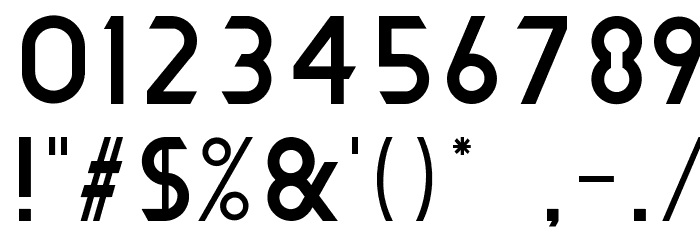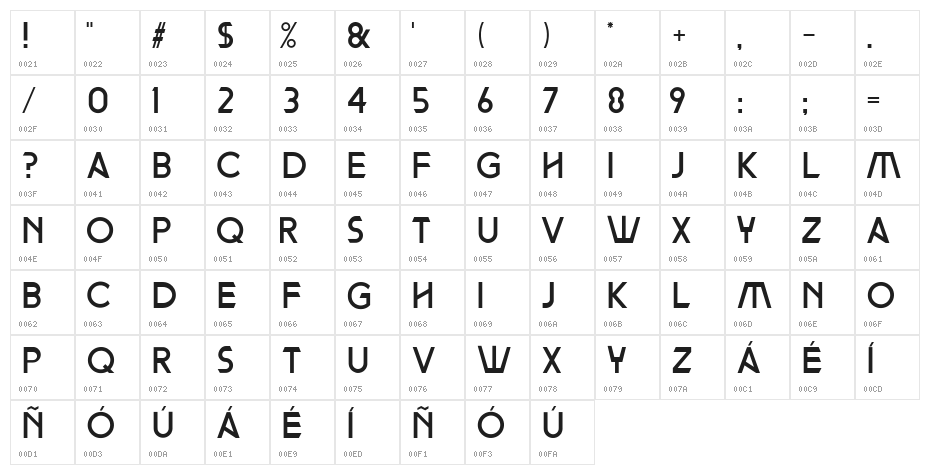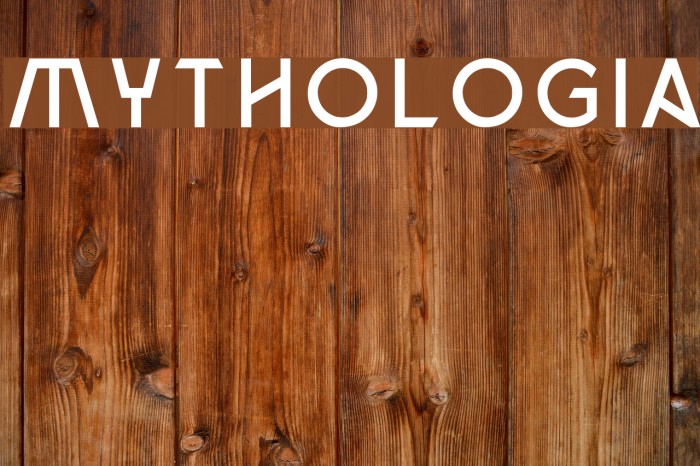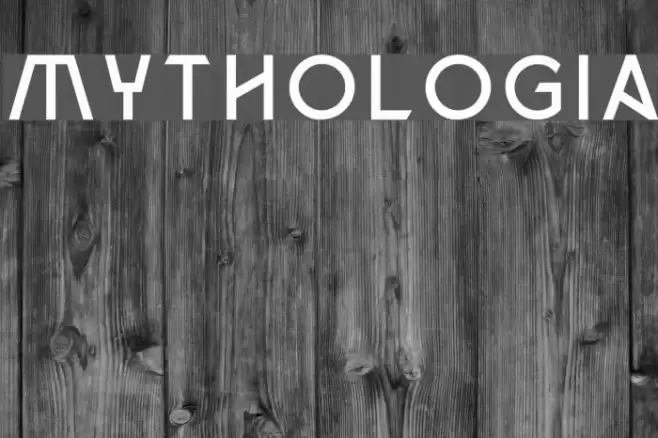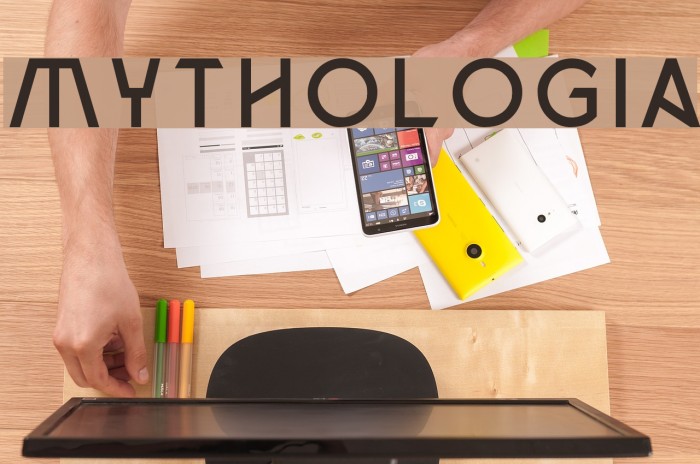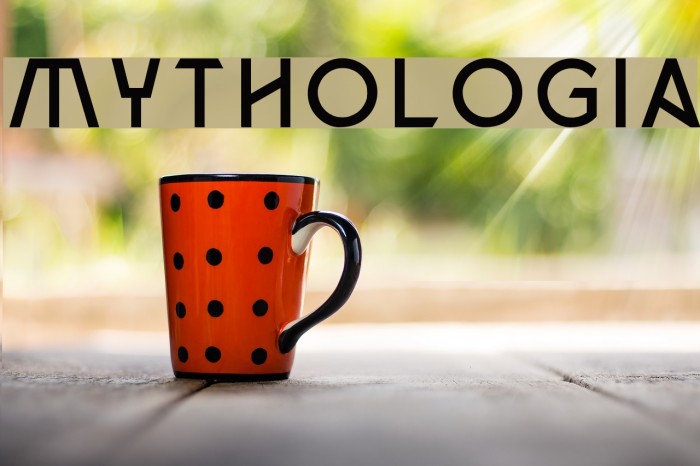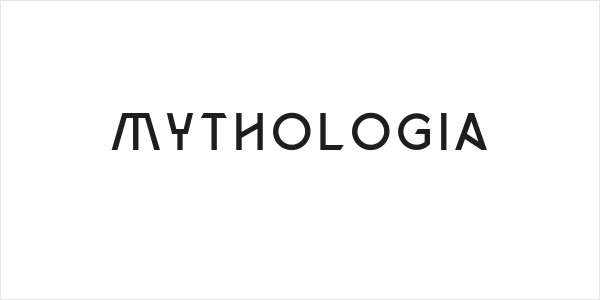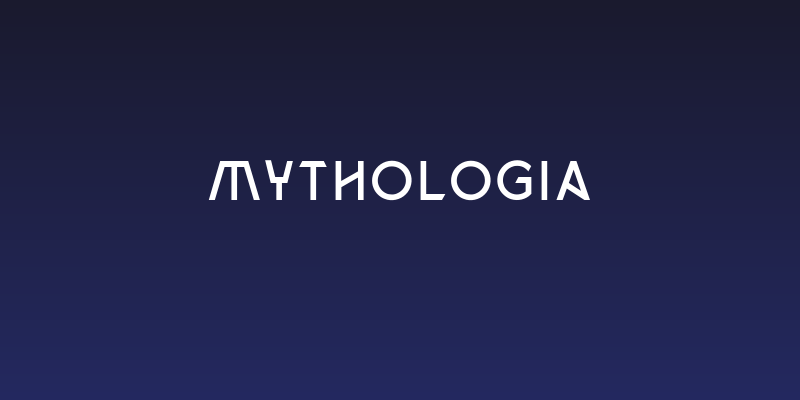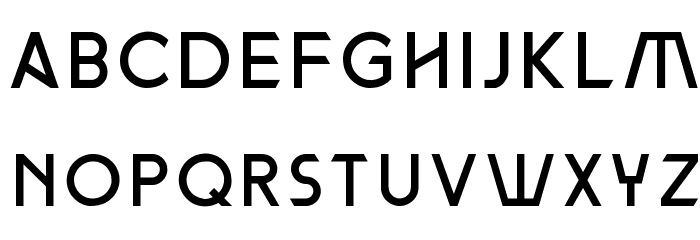
Mythologia Font
Mythologia Description
This font features a modern and geometric design with clean, sharp lines and a uniform stroke width. The characters are well-proportioned, offering a sense of balance and clarity. The uppercase letters exhibit a distinct angularity, particularly noticeable in letters like 'A', 'M', and 'V', which adds a unique flair. The lowercase letters maintain the geometric theme, with rounded forms that complement the uppercase set. The numerals are bold and easily legible, making them suitable for various applications. Special characters are designed with the same attention to detail, ensuring consistency throughout the font.
| Use Case | Headlines, Logos, Advertising |
| Proposed Projects | Ideal for branding, advertising, and editorial design projects that require a contemporary and stylish look. |